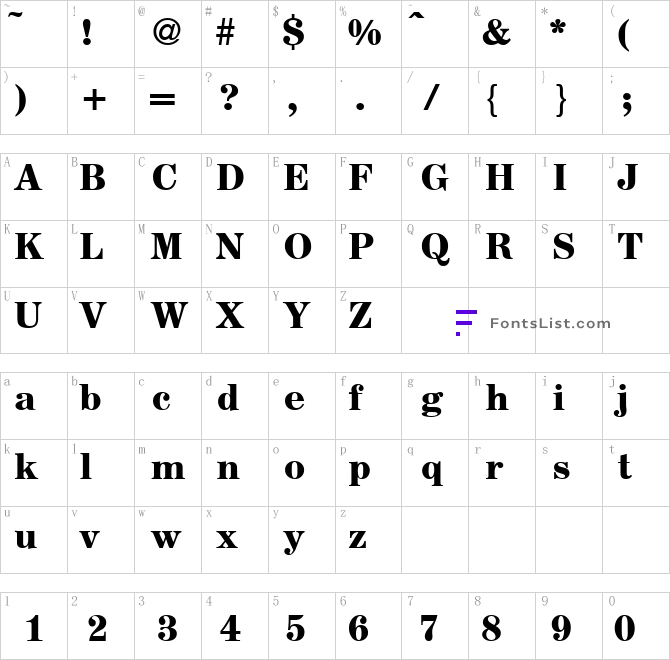
- Font Name:AureliusSerif
- Subfamily:Alts:AureliusSerif-Bold
- Full Name:AureliusSerif-Bold
- PostScript:AureliusSerif-Bold
AureliusSerif-Bold.ttf is a very beautiful artistic font, AureliusSerif-Bold.ttf is widely used in the design and printing of various books and pictures,AureliusSerif-Bold.ttf has a strong visual impact,AureliusSerif-Bold.ttf is a commonly used font in newspapers, magazines and books, and is used in posters, e-commerce Poster design, store design, logo design, font design and other fields.AureliusSerif-Bold.